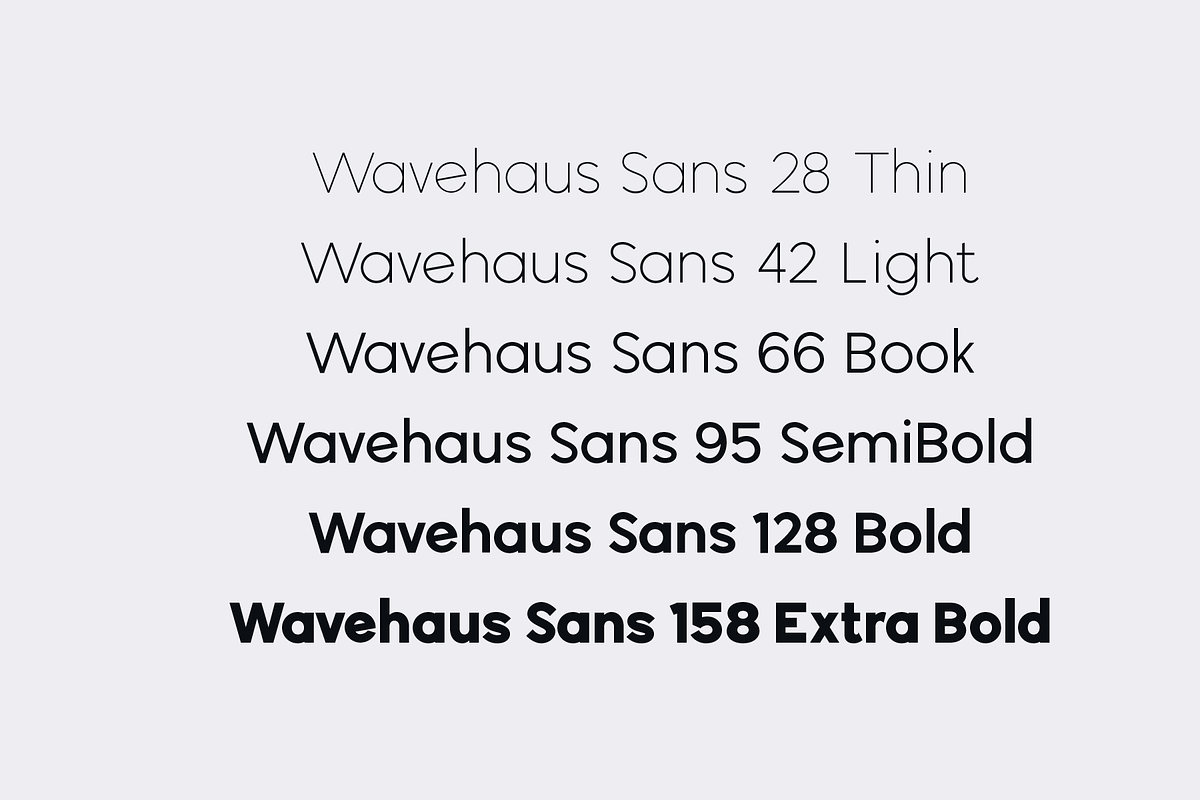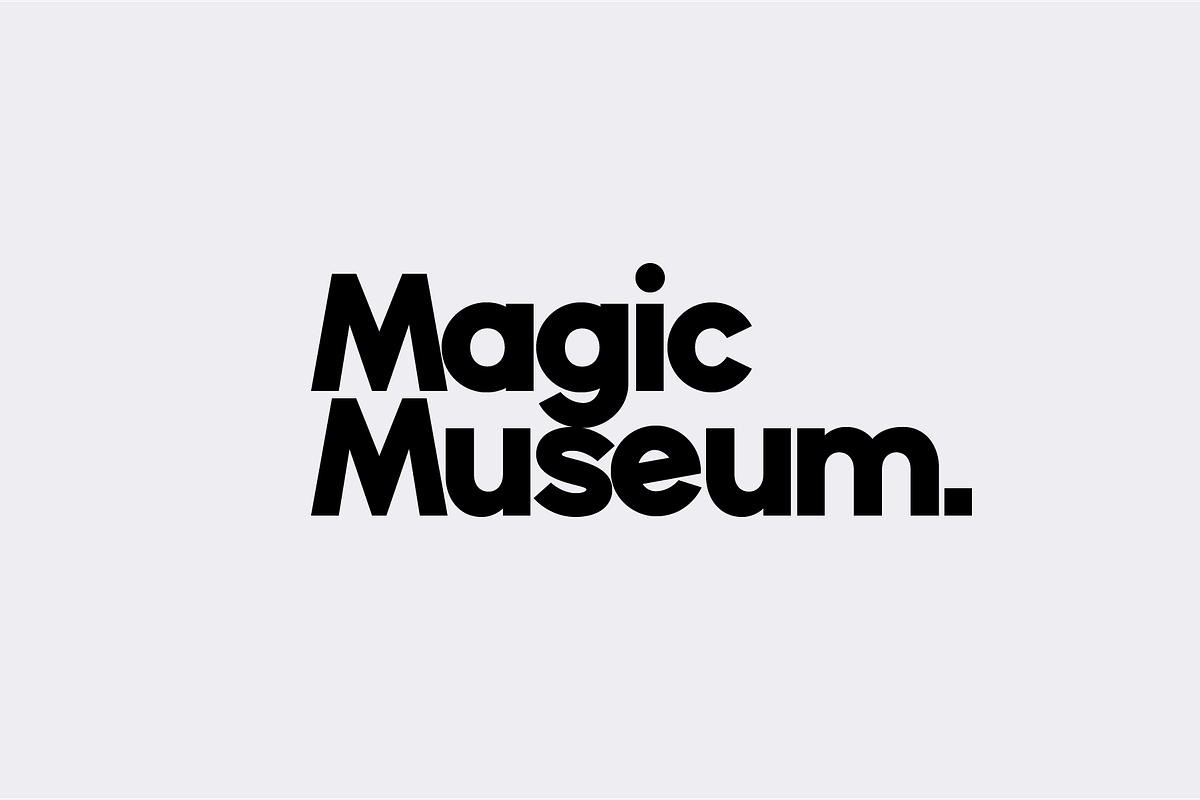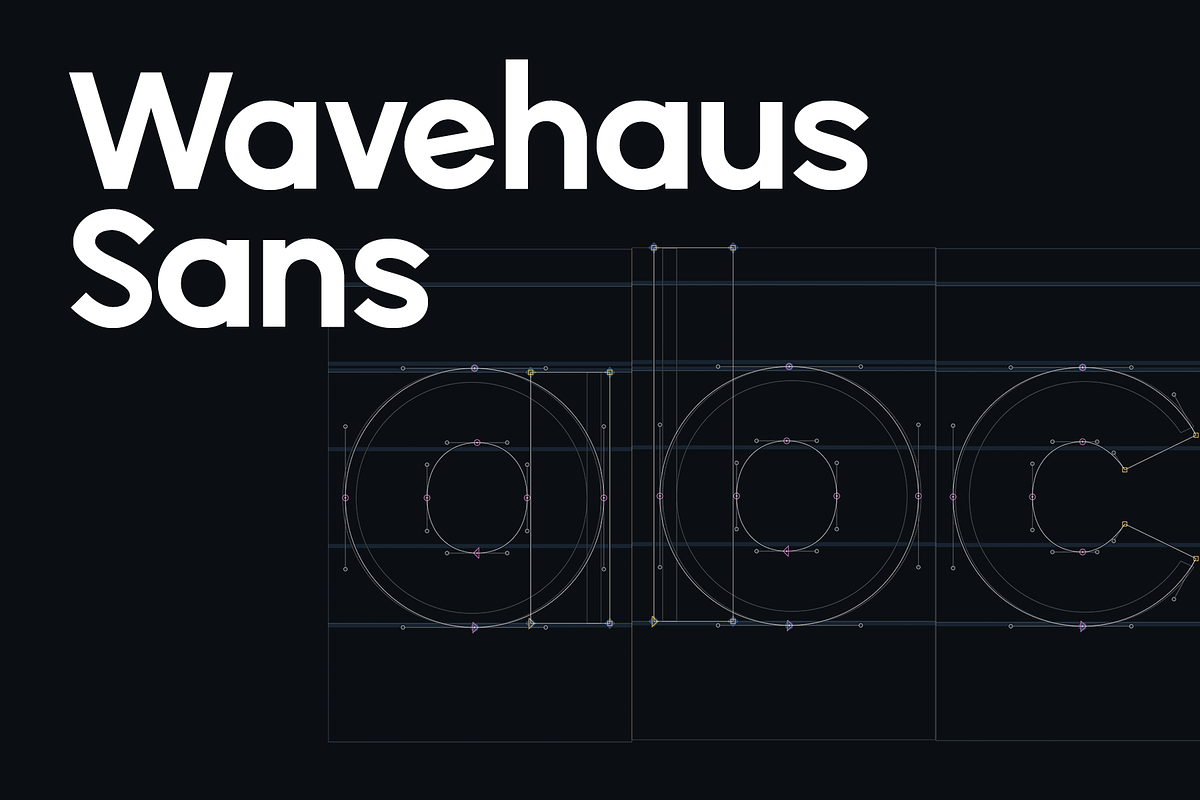
Wavehaus Sans Typeface
Geometric Sans Serif font family with 6 weights including a thin, light, book, semibold, bold and extra bold.
- Includes uppercase and lowercase characters, numerals and most common other characters.
- Wavehaus 28 Thin
- Wavehaus 42 Light
- Wavehaus 66 Book
- Wavehaus 95 SemiBold
- Wavehaus 128 Bold
- Wavehaus 158 ExtraBold
Wavehaus Sans Typeface by grahampaterson fits naturally into Branding, posters, packaging, typography.